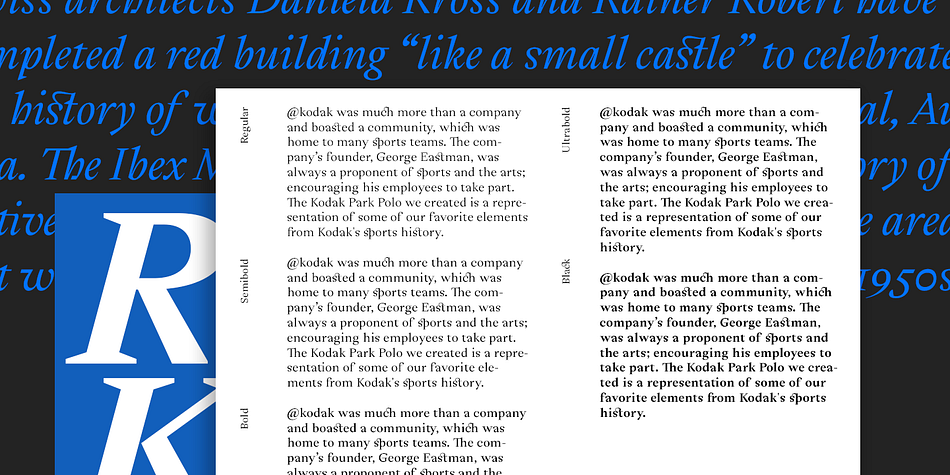
Cassius
Designed by David Súid, Cassius is a serif font family. This typeface has twelve styles and was published by W Type Foundry.
Cassius & Cassius Italic are a postmodern typeface system from the Garaldes family.
The main characteristic of this type family is its inverted anatomy and projected terminals. Cassius was meticulously designed with special focus on its structure. With its proposal for a fresh, attractive and rhythmic system, Cassius gives great personality to all kinds of composition.
The family consists of 5 weights from regular to black, with respective Italics. Each instance includes; Case sensitives Accents, Ligatures, Fractions, Small Caps, Old Style Figures, Case Sensitives (symbols and punctuation) and more.
This font is perfect for books and magazines compositions, and in general for the construction of immersive printed or digital texts.